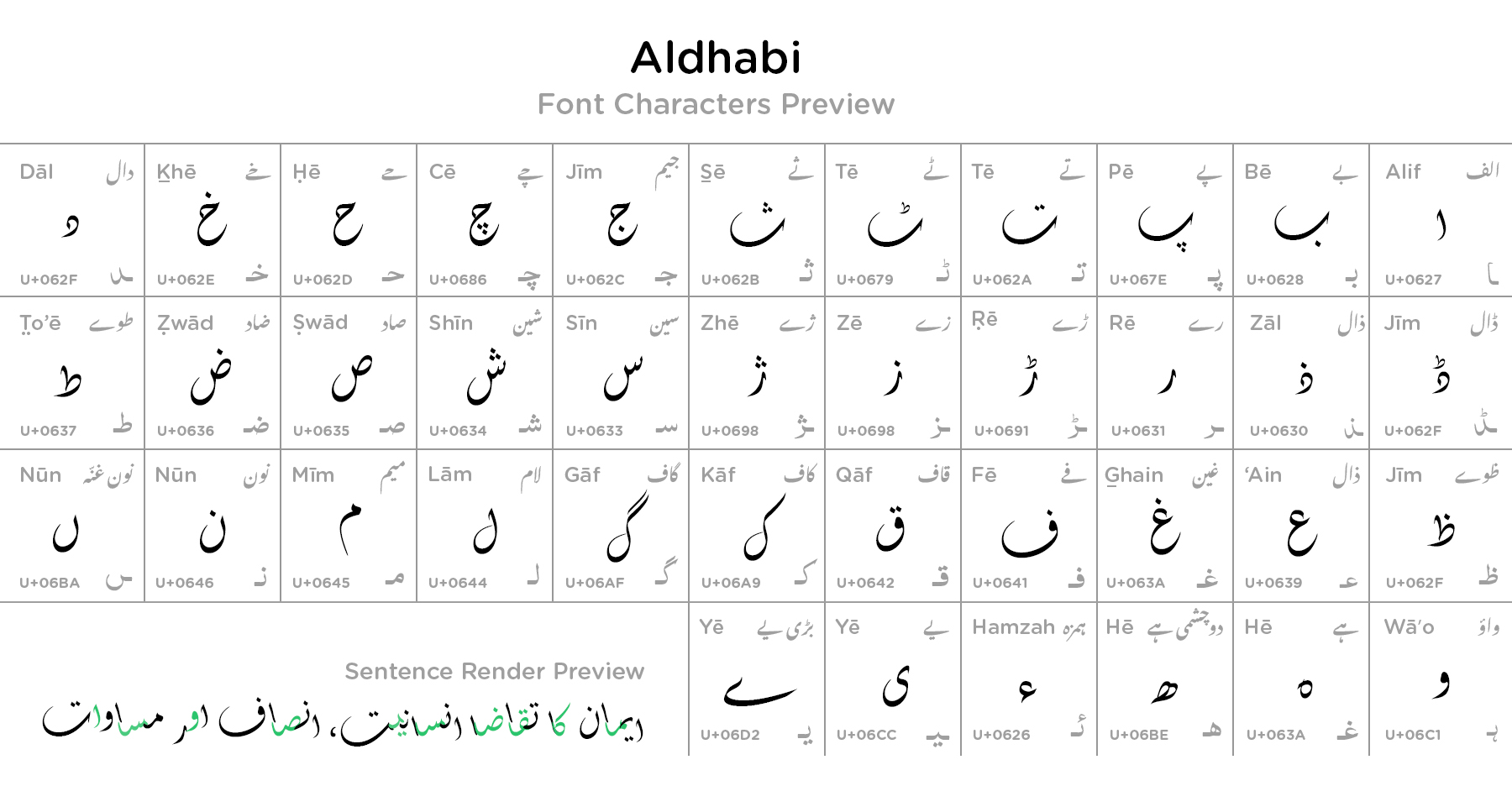
Aldhabi is a cursive Arabic OpenType font designed by Fiona Ross, Tim Holloway, Titus Nemeth, John Hudson, and Mamoun Sakkal for Microsoft in 2014. It is intended for larger display sizes, with an elegant, flowing style creating historical influences and contemporary needs. Inspired by the Ottoman Turkish zülf-ü Cruz style, “the way of curls,” this flowing and rolling style serves as a pioneer to the Ottoman Diwani calligraphic style, sharing common features with the Persian Nastaliq style. It is undoubtedly influenced by early Diwani calligraphy, which is known for its ornate details and flowing cursive connections. It includes harmonized Latin characters to support occasional English or European language words within Arabic text, as well as transliterations of Arabic and Persian.